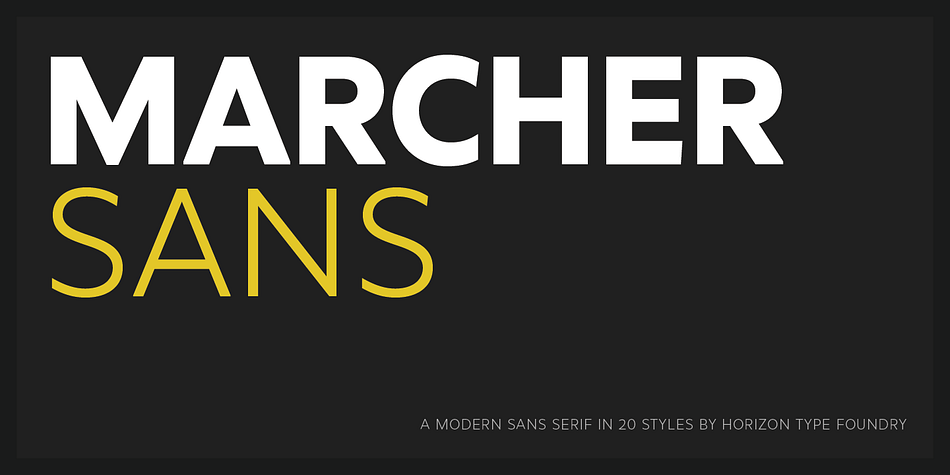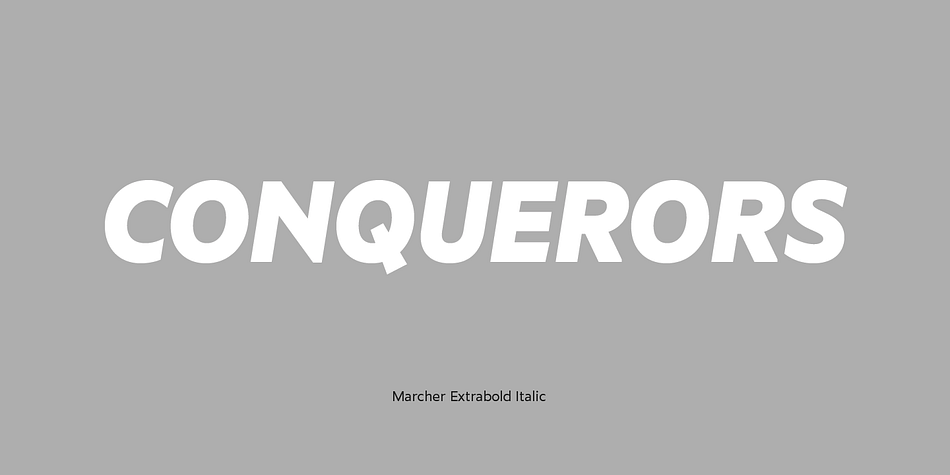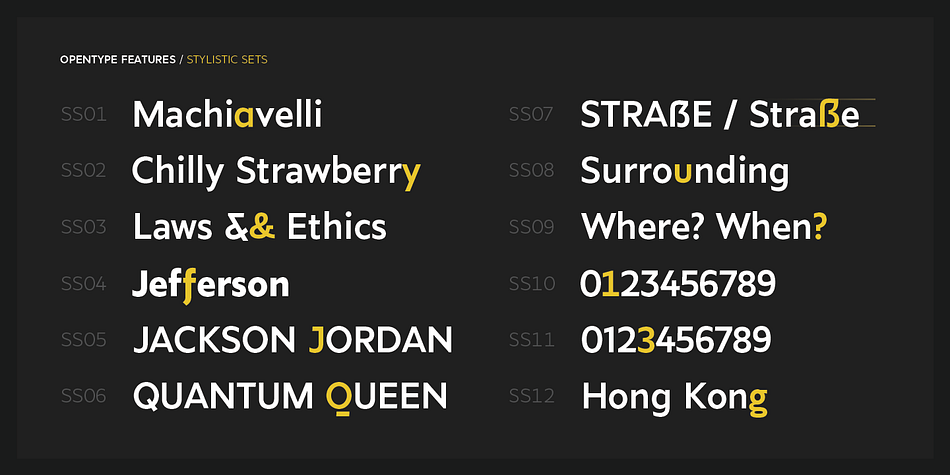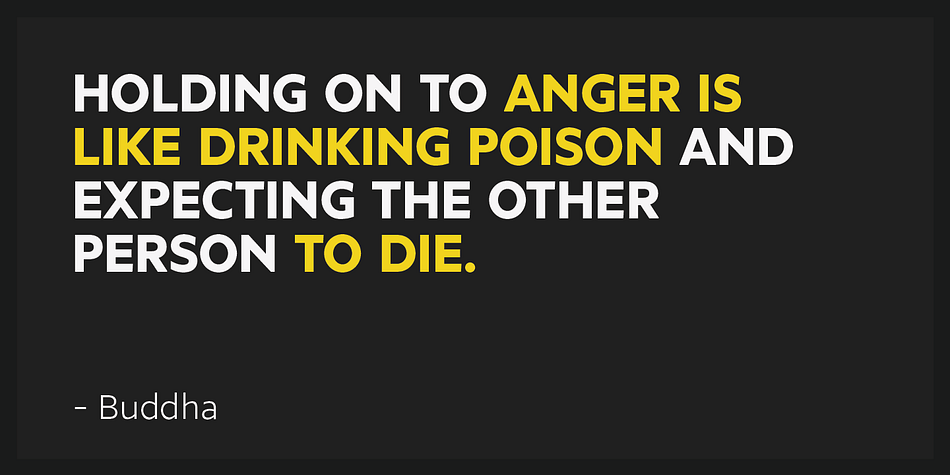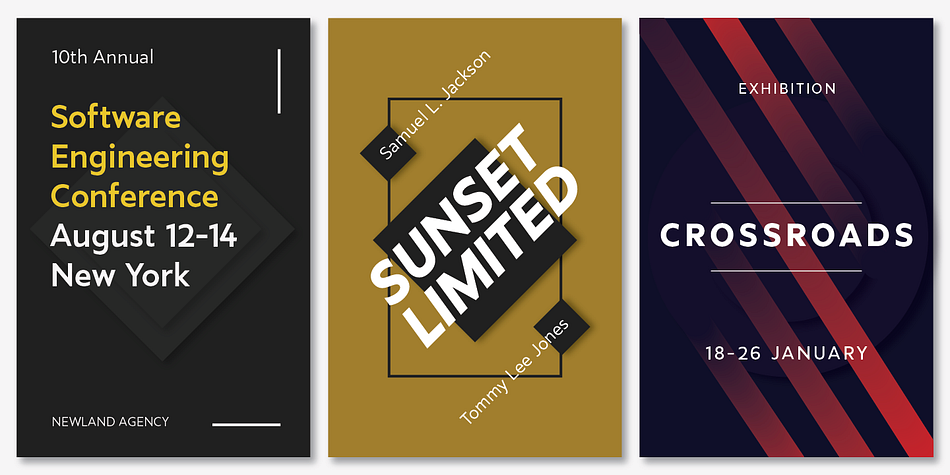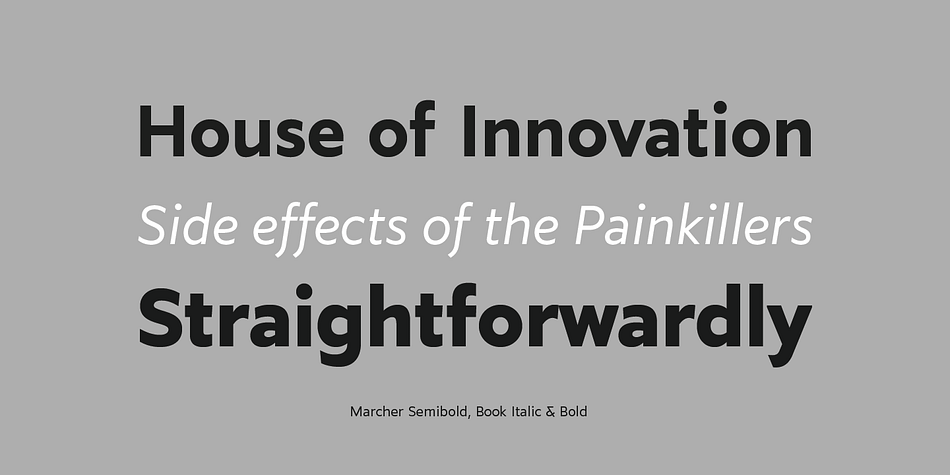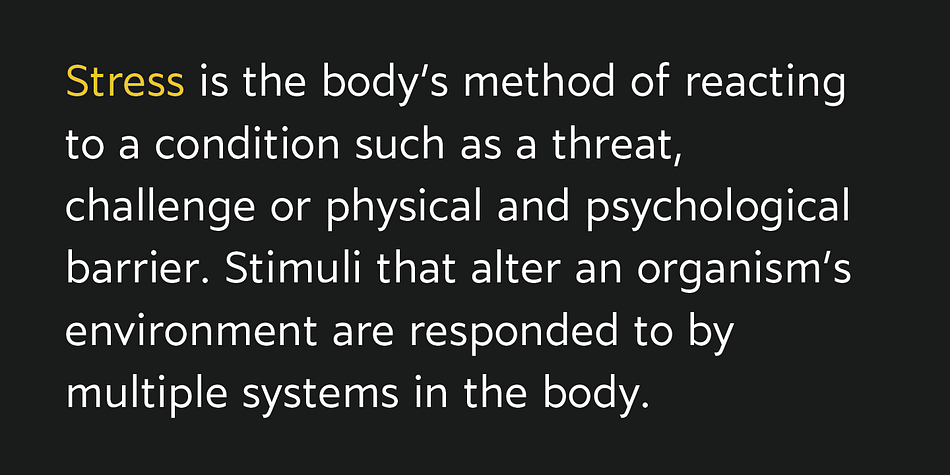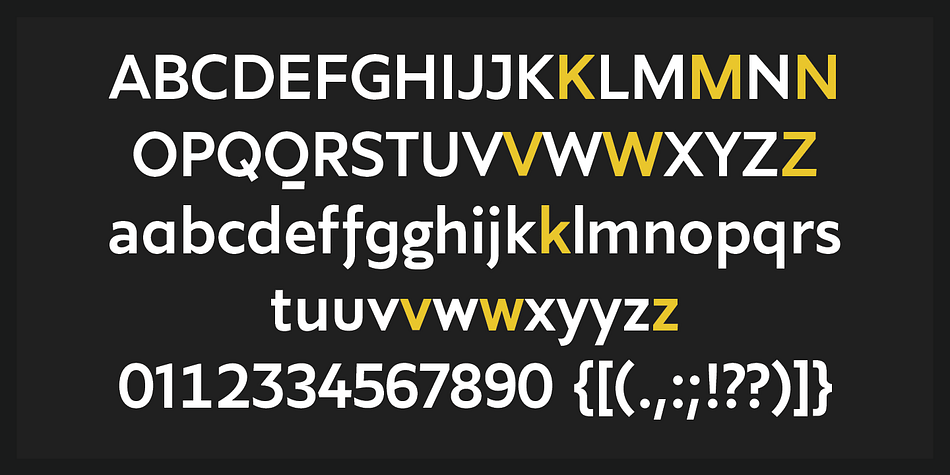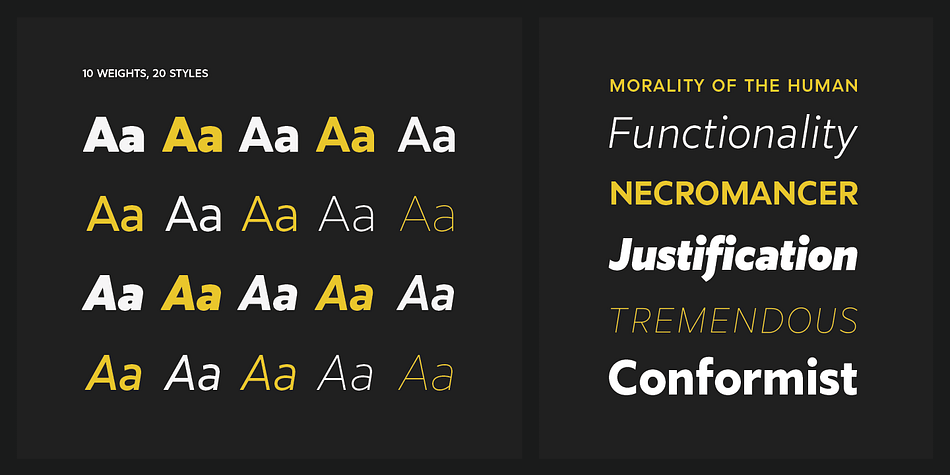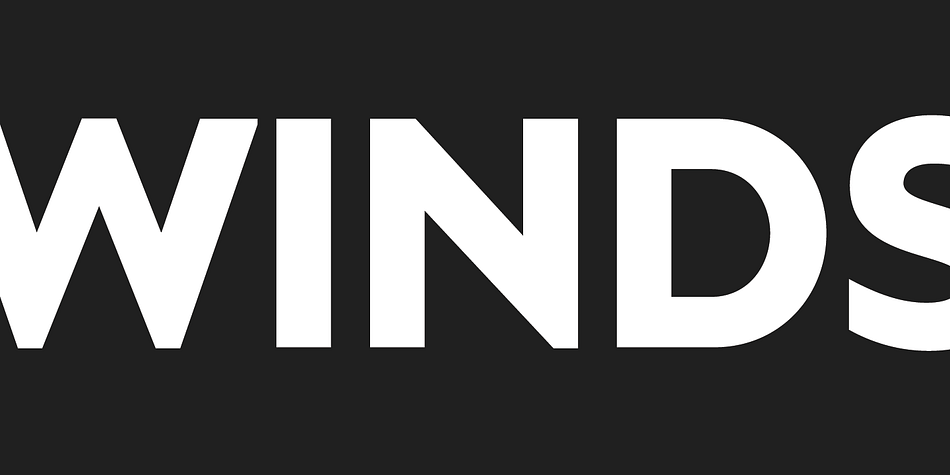
Designed by Ufuk Aracıoğlu, Marcher is a sans serif font family. This typeface has twenty styles and was published by Horizon Type.
Marcher is a modern display typefamily in 10 weights plus matching true italics. Designed for an impactful and stylish visual impression especially on logos and posters. Marcher has semi humanist and semi geometric details and extensive language support.
Verson 1.2 - Marcher has now Opentype features like; fractions, numerators, denominators, tabular numbers, stylistic alternates and 12 stylistic sets.